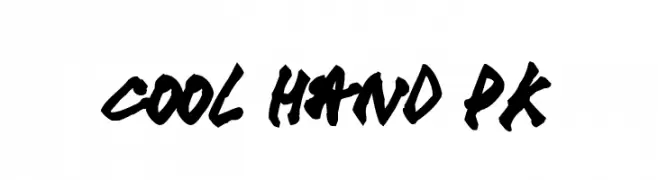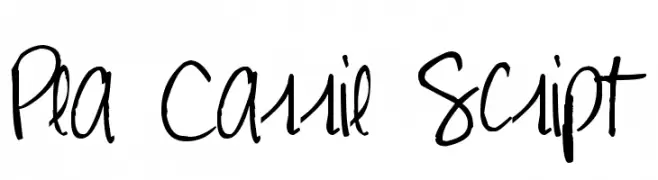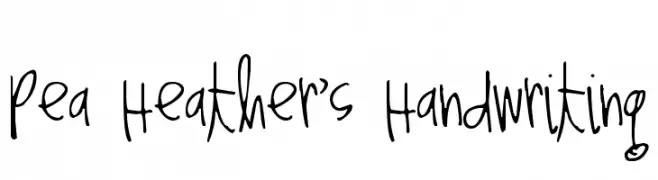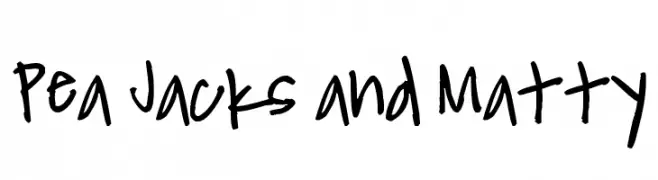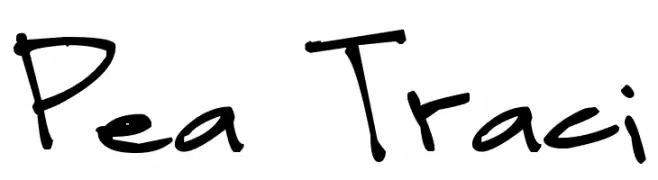
A bold, expressive handwritten font with dynamic strokes.
A playful, handwritten script with fluid, connected strokes.
A playful, handwritten font with a casual and personal touch.
A playful, casual handwritten script with bold strokes and a dynamic feel.
A playful, casual handwritten font with dynamic strokes and a personal touch.
A playful, casual handwritten font with an informal and personal style.
A playful, casual handwritten font with fluid, irregular strokes.
A casual, playful handwritten font with dynamic strokes.
A playful, handwritten font with a whimsical and casual style.
A playful, casual handwritten font with uneven strokes and a personal touch.